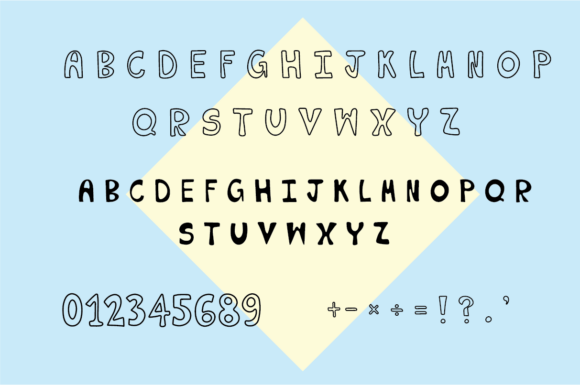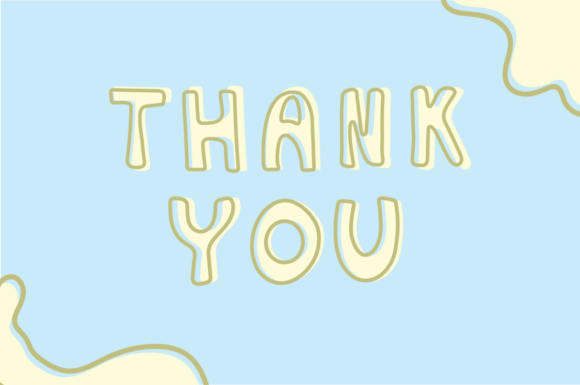
Introducing Fun Outline Font: Adding a Splash of Color and Cheer to Your Designs
Are you tired of using the same old boring fonts in your designs? Look no further! Fun Outline Font is here to bring a playful and whimsical touch to your projects. This hand-drawn font is perfect for designers, crafters, and educators who want to add a dash of fun and personality to their work.
What Makes Fun Outline Font So Special?
Fun Outline Font is a unique and eye-catching font that features a bold outline with a colorful and quirky fill. Each letter is carefully hand-drawn to create a playful and cheerful vibe that’s sure to capture the attention of your audience. Whether you’re working on a kids’ project, party invitation, or educational material, this font is sure to make your design pop!
Perfect for Kids’ Projects and Party Invites
Kids’ projects and party invites are always a blast to work on, and Fun Outline Font is the perfect companion for these types of designs. The font’s playful and colorful nature makes it ideal for:
- Kids’ party invitations: Create eye-catching invites that will get your little ones excited for their next birthday bash.
- School projects: Add a fun and creative touch to your child’s school projects, making them stand out from the crowd.
- Children’s book illustrations: Bring your story to life with a font that’s both fun and engaging.
Educational Materials Made Fun
Learning doesn’t have to be boring! Fun Outline Font is also perfect for educational materials, such as:
- Worksheet headers: Add a pop of color and fun to your worksheets, making them more engaging for students.
- Lesson plan titles: Create visually appealing lesson plans that will capture your students’ attention.
- Education posters: Design informative posters that are both fun and educational.
Why Designers and Crafters Love Fun Outline Font
Fun Outline Font is not just for kids! Designers and crafters also love this font for its unique and playful style. Here are just a few reasons why:
- Unique style: Stand out from the crowd with a font that’s both quirky and fun.
- Customizable: Experiment with different colors and design combinations to make the font your own.
- Versatile: Use Fun Outline Font in a variety of projects, from digital designs to print materials.
Getting Started with Fun Outline Font